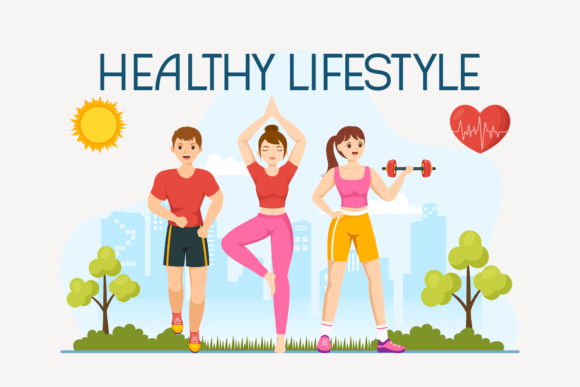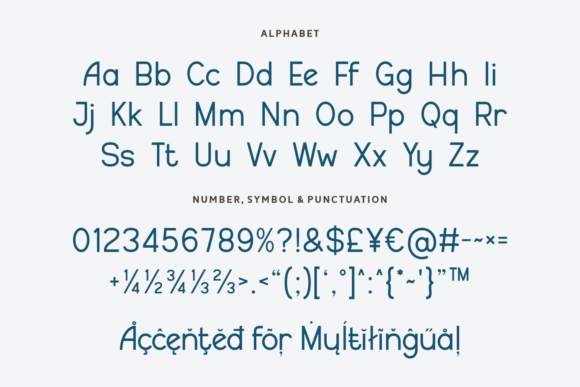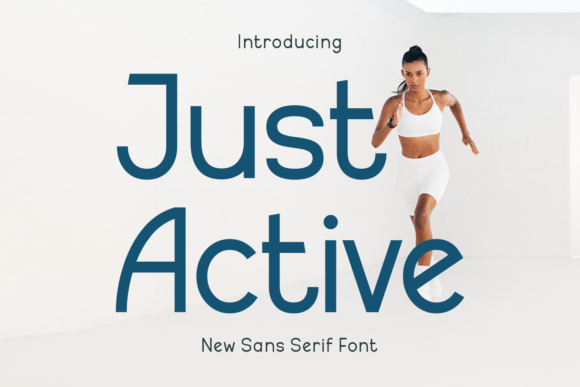
Introduction to Just Active Font
Just Active is a modern sans serif font with dynamic curves and clean lines that evoke movement and energy.
With its friendly yet assertive letterforms, this font is perfect for fitness branding, activewear designs, health apps, and motivational content Just Active keeps your message bold, fresh, and effortlessly engaging.